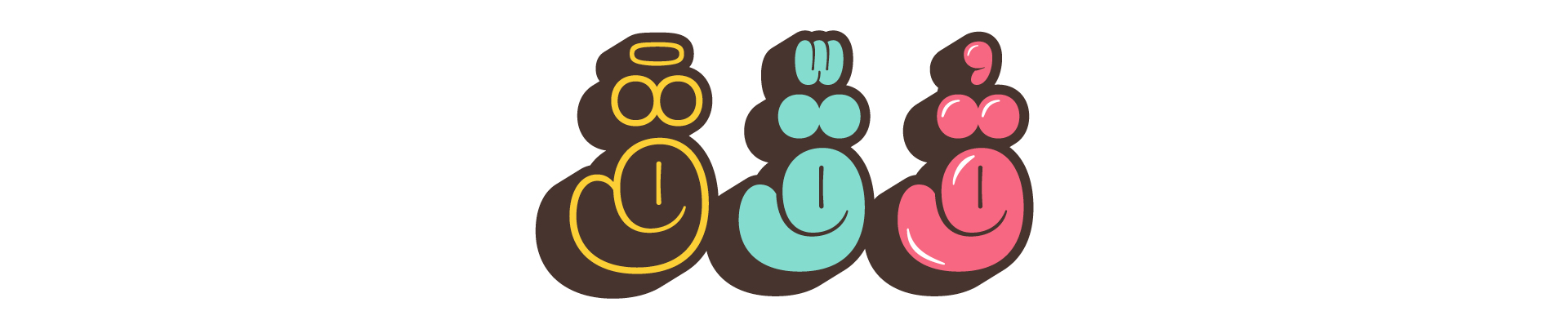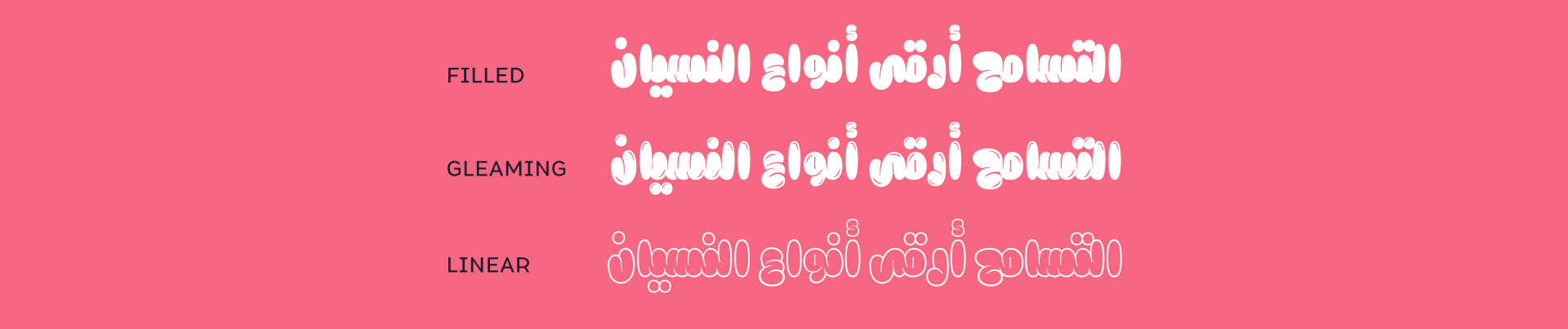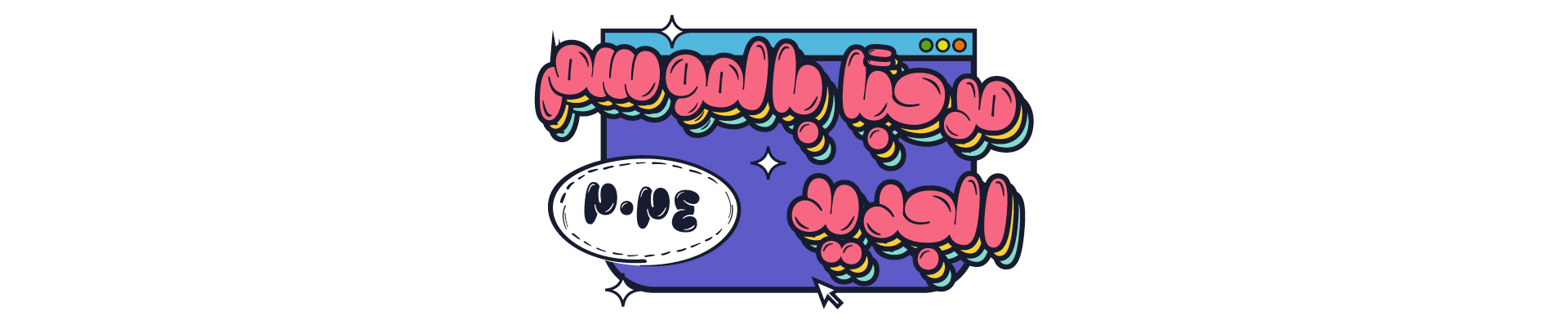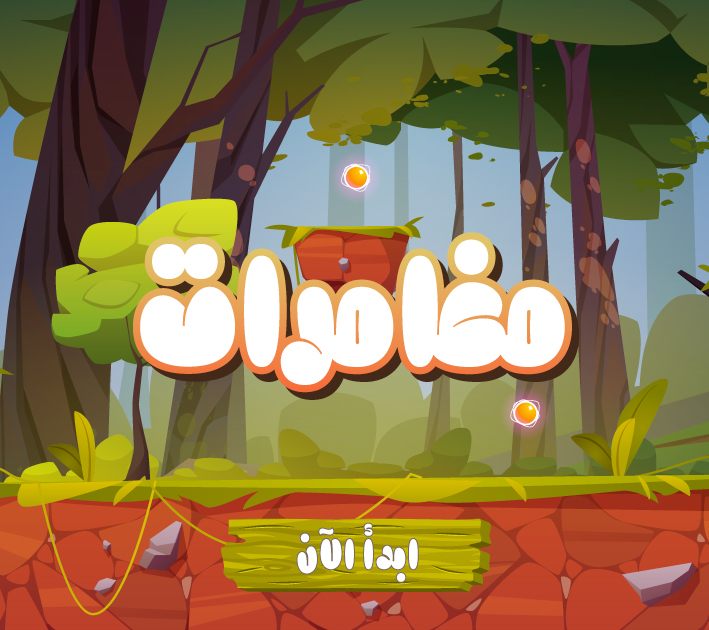
About Tamtam Font
Introduction:
Tamtam is a new display font with a childish flavor designed by TSfonts Foundry. It is also considered one of the distinctive Arabic fonts because of the conjoined letters. The font is programmed to make automatic replacements to prevent conflicting letters and dots.
Weights and Languages:
Tamtam supports the Arabic language and consists of three styles for a variety of usages: “Linear – Filled – Gleaming.”
Usage:
Tamtam is used for comics, sweets packaging, social media posters, and educational videos for younger audiences. It supports the Arabic language in addition to diacritics.